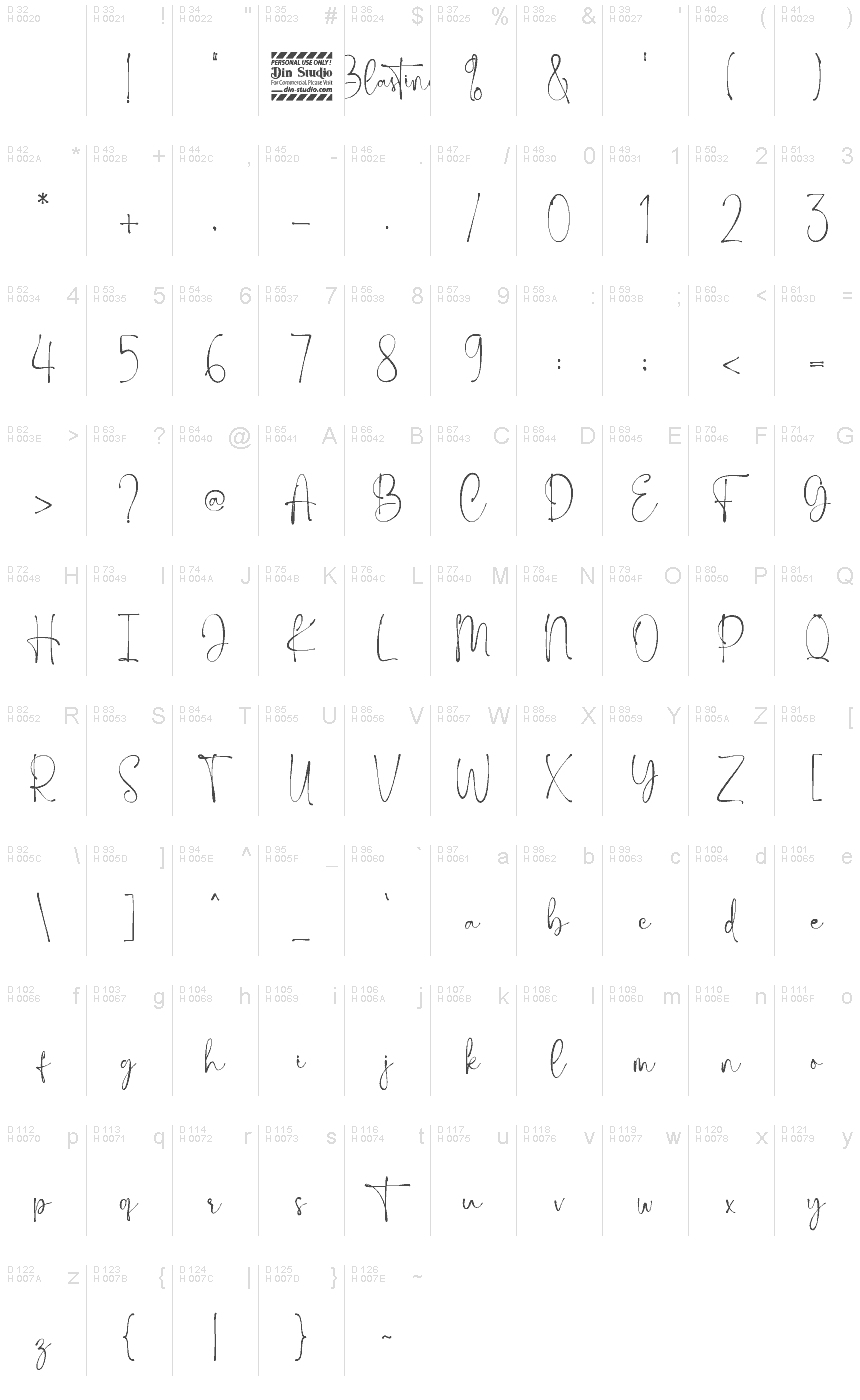
Blastine font by Din Studio is an elegant, expressive signature font with a light weight. The sophisticated construction gives it a modern fluid appearance to match today’s taste. It is stylish and effectively imitates human handwriting in the most professionally-looking manner.
A few potential use cases include invitation design, business cards, branding projects, promotional content and ads, social media images, digital portfolio templates and projects. The free handwritten font suits any other usage that requires modern-day elegance.
Features include:
- Stylistic Sets
- Swashes
- Multilingual Supports
- PUA Encoded
- Numerals and Punctuations